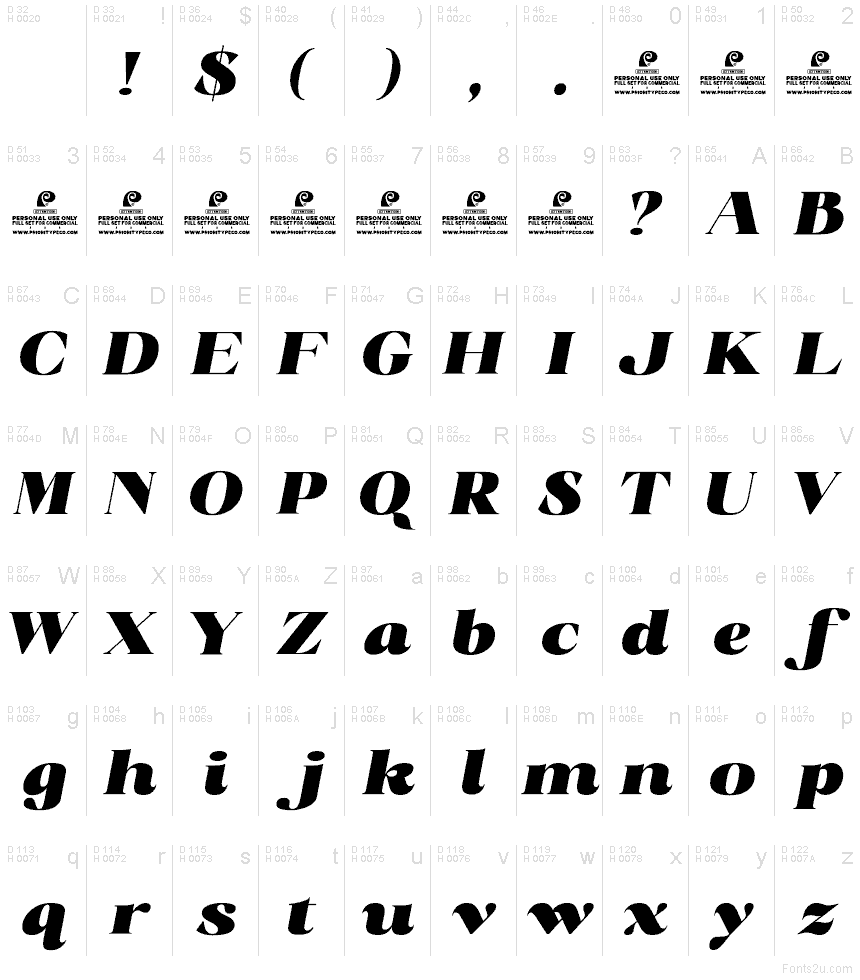
Radiant Charisma DEMO Black Ita
Radiant Charisma Black Italic font by Prioritype Co is an expanded bold typeface characterized by elegant and sophisticated flowing curves, traditional serif influences, and a romantic aura. Combining the formal with the detailed gives this free serif font its particular visual appeal that can be communicated in print designs.
Possible use cases for Radiant Charisma Black Italic include announcements on wedding congratulation cards, direct messages to loved ones on anniversary posters, titles for literature book covers related to love stories and novels among other similar speaking artworks.